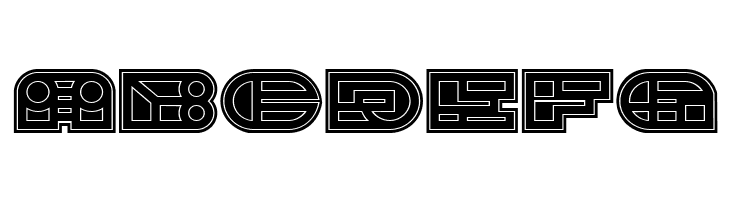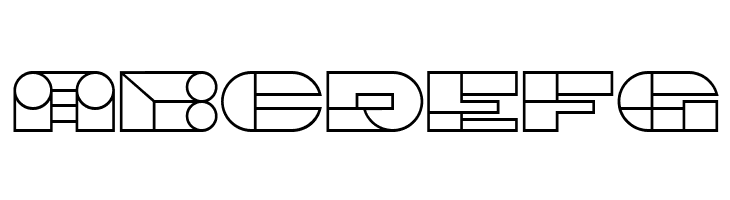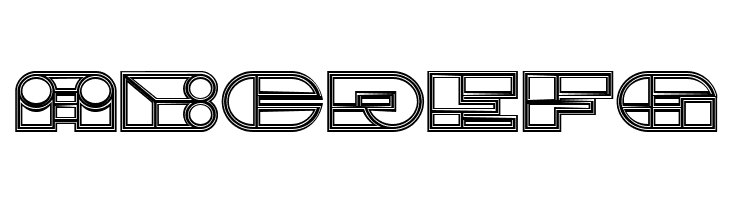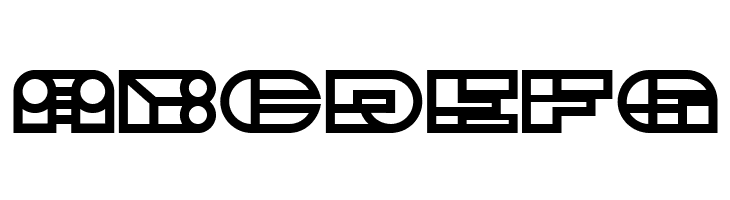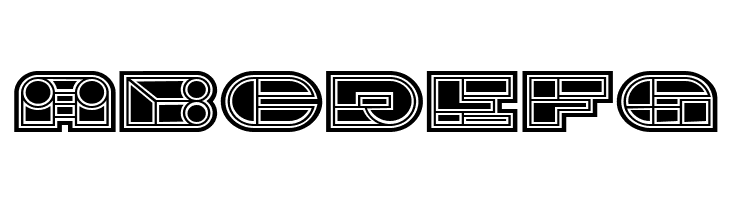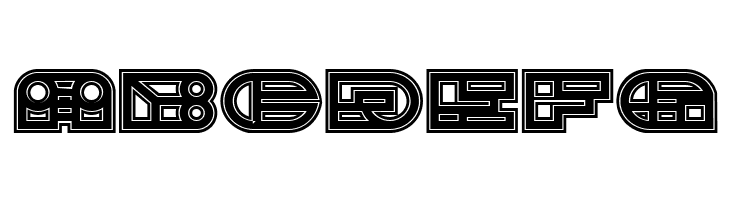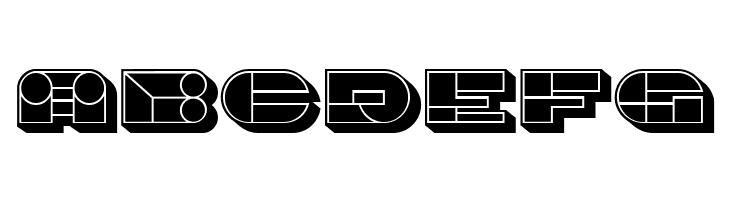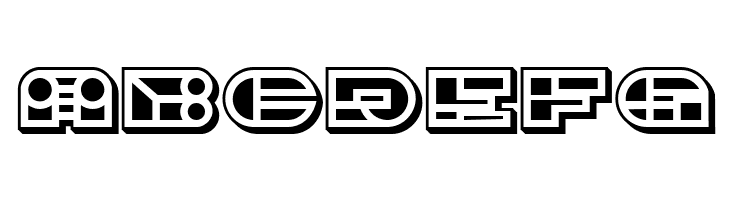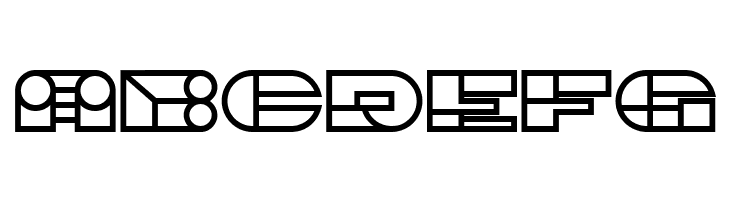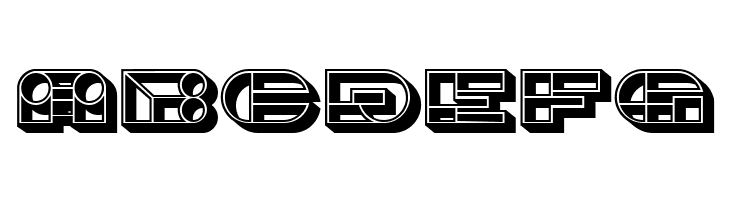
Imbecile Abstract Heavy Filled Font
A bold, abstract font with heavy, filled characters and intricate geometric designs.
Imbecile Ornamental Filled Black Font
A bold, ornamental font with geometric patterns and intricate details.
Imbecile Abstract Regular Font
An abstract, geometric font with intricate patterns and a modern style.
Imbecile Outlined Filled Font
A bold, geometric font with outlined and filled segments, offering a modern and striking appearance.
Imbecile Ornamental Filled Font
A bold, decorative font with intricate geometric patterns and a retro-futuristic style.
Imbecile Ornamental Regular Font
A decorative and ornamental font with intricate geometric patterns and bold outlines.
Imbecile Hollow Heavy Font
A bold, geometric font with hollow interiors and a modern, futuristic style.
Imbecile Hollow Regular Font
A geometric, hollow font with a futuristic and modern design.
Imbecile Abstract Filled Font
A bold, geometric font with intricate abstract patterns within each character.
Imbecile Abstract Heavy Font
A bold, abstract font with geometric and futuristic elements.
Imbecile Outlined Regular Font
A geometric, outlined font with intricate line work and decorative elements.
Imbecile Regular Font
A bold, geometric font with a modern, decorative style and unique cutouts.
Imbecile 3D Filled Font
A bold, 3D geometric font with filled interiors, ideal for striking headlines and display use.
Imbecile Hollow Black Font